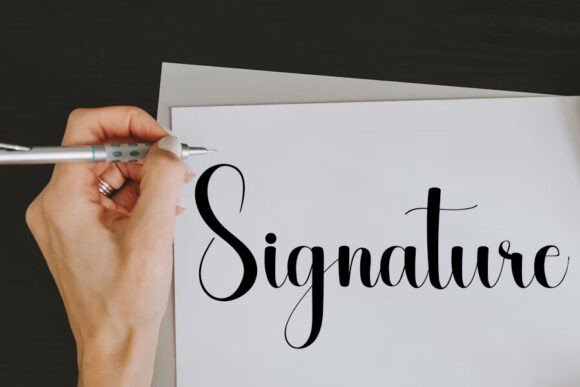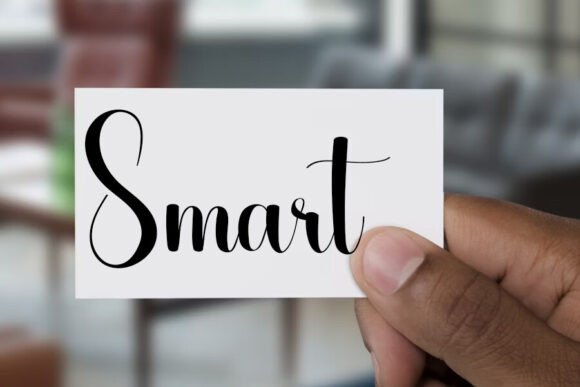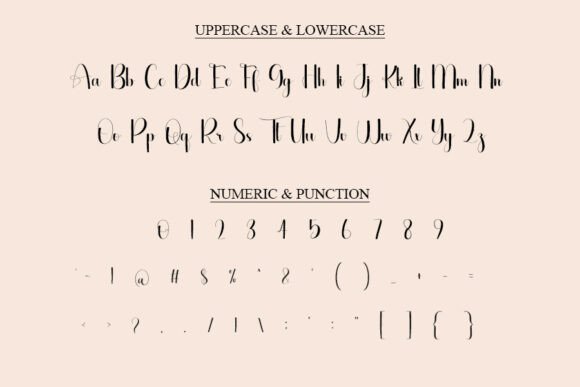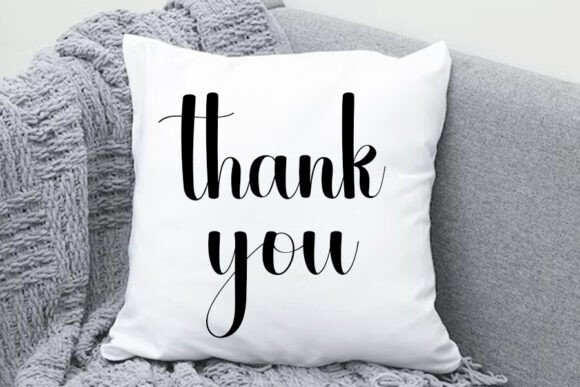
Unlock Your Design Potential with Amartha Font
I’ll never forget the time I was working on a wedding invitation project, and my client asked for a font that was both elegant and playful. I scoured the internet, tried out countless fonts, but nothing seemed quite right. That was until I stumbled upon Amartha Font. It was like a breath of fresh air – simple, yet unique, and perfectly captured the essence of the occasion. In this article, I’ll share my experience with Amartha, and how it can elevate your design game.
What Makes Amartha Special?
Amartha is an exquisite and invigorating font, carefully crafted for a wide range of design pursuits. Whether you’re creating YouTube banners, cover logos, wedding invitations, ID cards, flyers, or crafts, Amartha is the perfect typeface to take your creations to the next level.
Here’s what I love about Amartha:
• ✨ Elegant simplicity: Amartha’s clean lines and minimalist design make it perfect for a variety of design projects.
• ✅ Versatility: It works well for both digital and print designs, and can be used for personal or commercial projects.
• 💡 Unique character: Amartha has a distinct personality that sets it apart from other fonts.
And here are some minor quirks to consider:
• 🤔 Limited availability of certain characters: Some special characters or glyphs might not be available, but this is relatively rare.
• ⚠️ May require adjustment for large blocks of text: Amartha is best suited for headlines, titles, and short paragraphs, as it can be a bit challenging to read in large blocks of text.
The Story Behind Amartha
Amartha was designed with the goal of creating a font that’s both elegant and accessible. The designer, inspired by the beauty of simplicity, aimed to craft a typeface that would be perfect for a wide range of design projects. With its clean lines and unique character, Amartha is a testament to the power of good design.
What is Amartha font best used for? Amartha is versatile and can be used for a variety of design projects, including YouTube banners, cover logos, wedding invitations, ID cards, flyers, and crafts.
Does Amartha support OpenType features? Yes, Amartha supports OpenType features, including Stylistic Alternates, Glyphs, and Swashes.